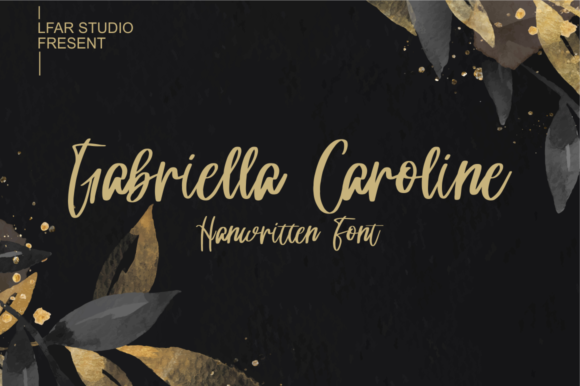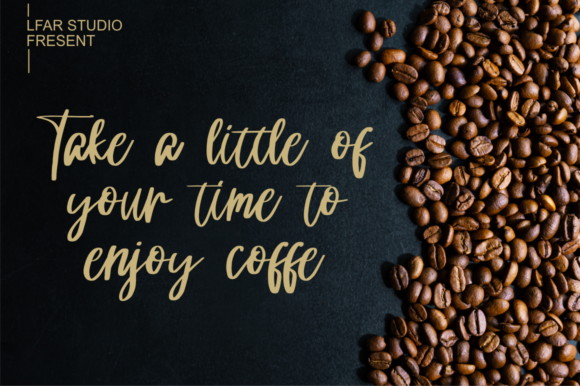
About Gabriella Caroline Font
Gabriella Caroline is an elegant handwritten font featuring a lovely brush. This font is perfect for adding a touch of luxury to any design project that you wish to create!